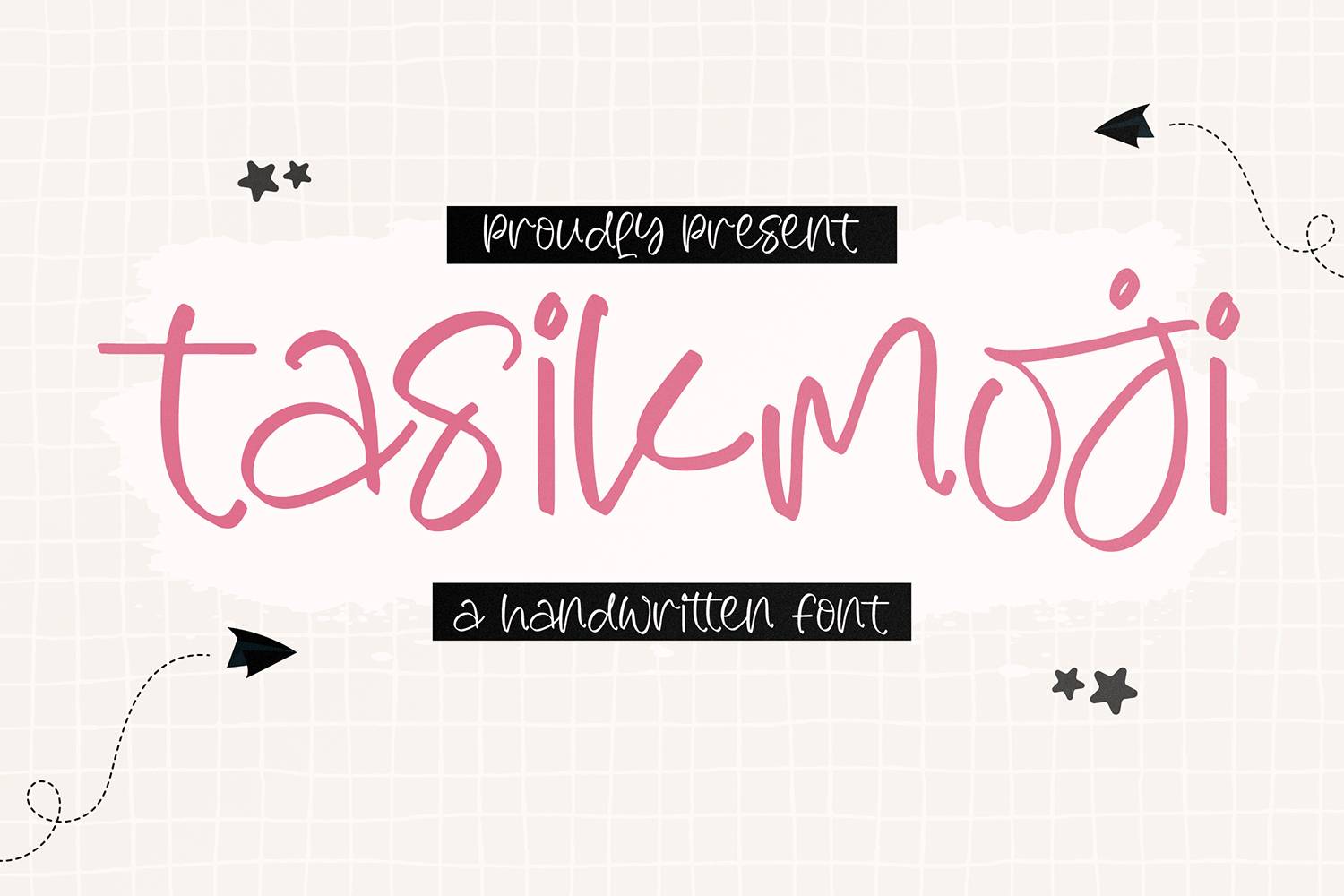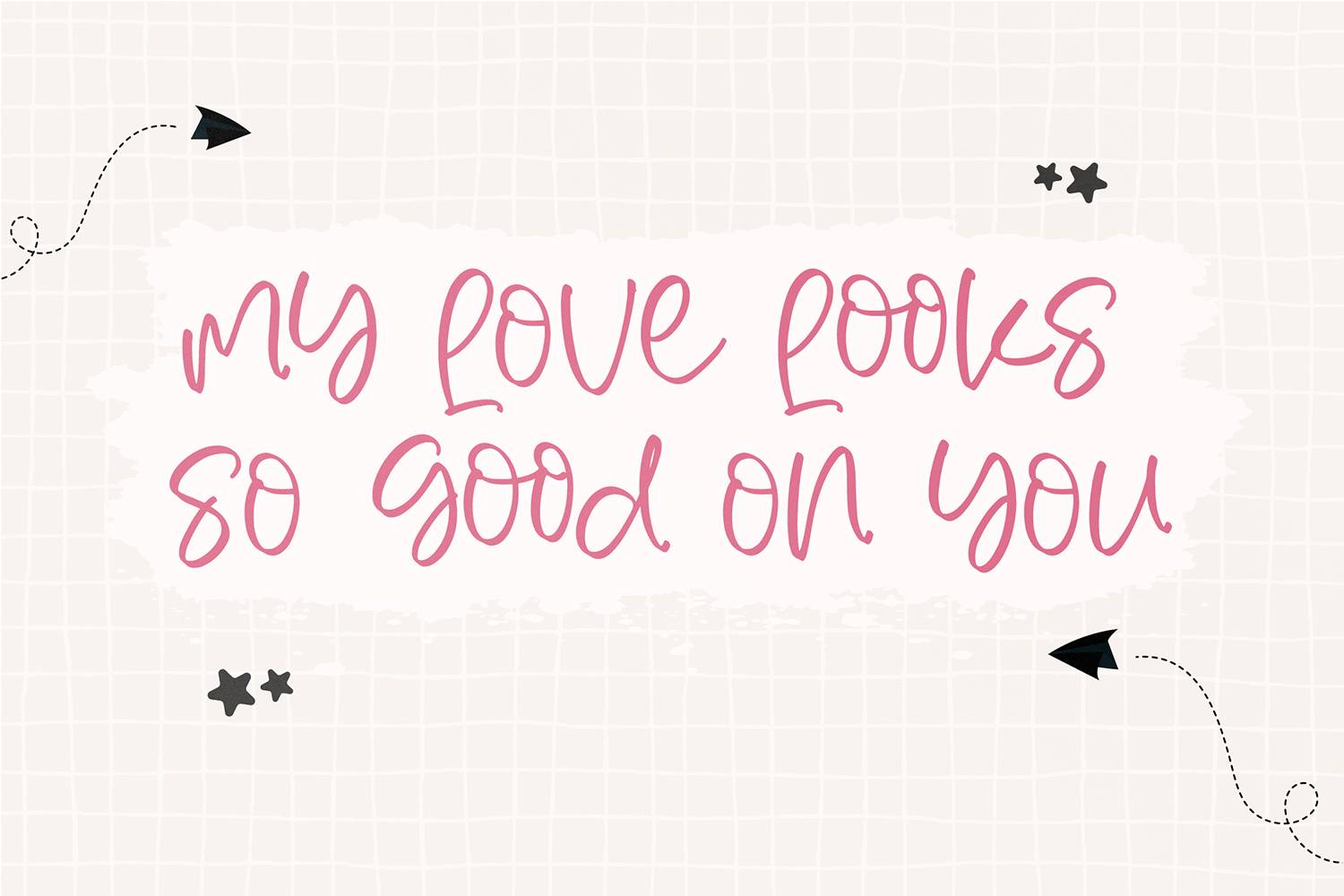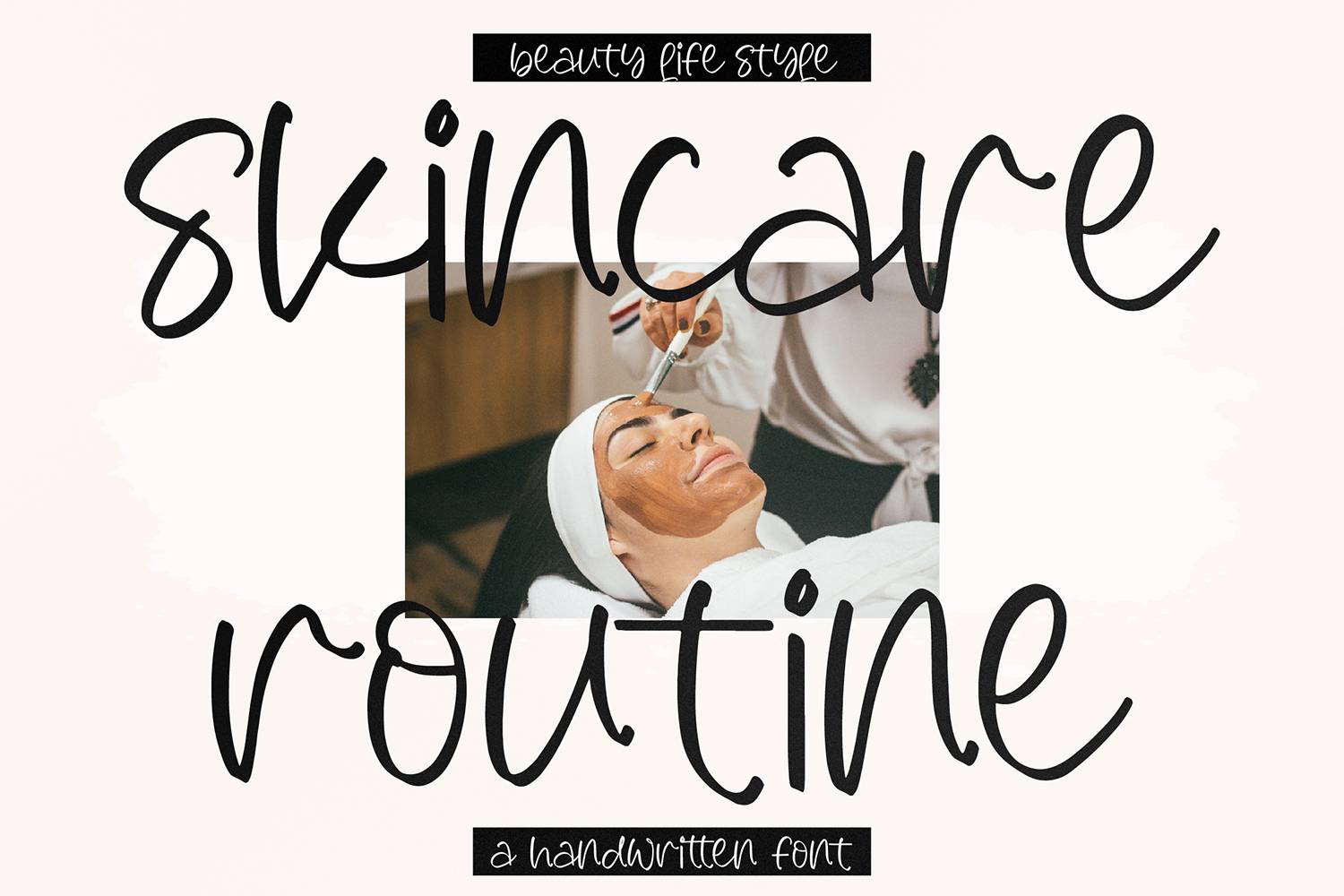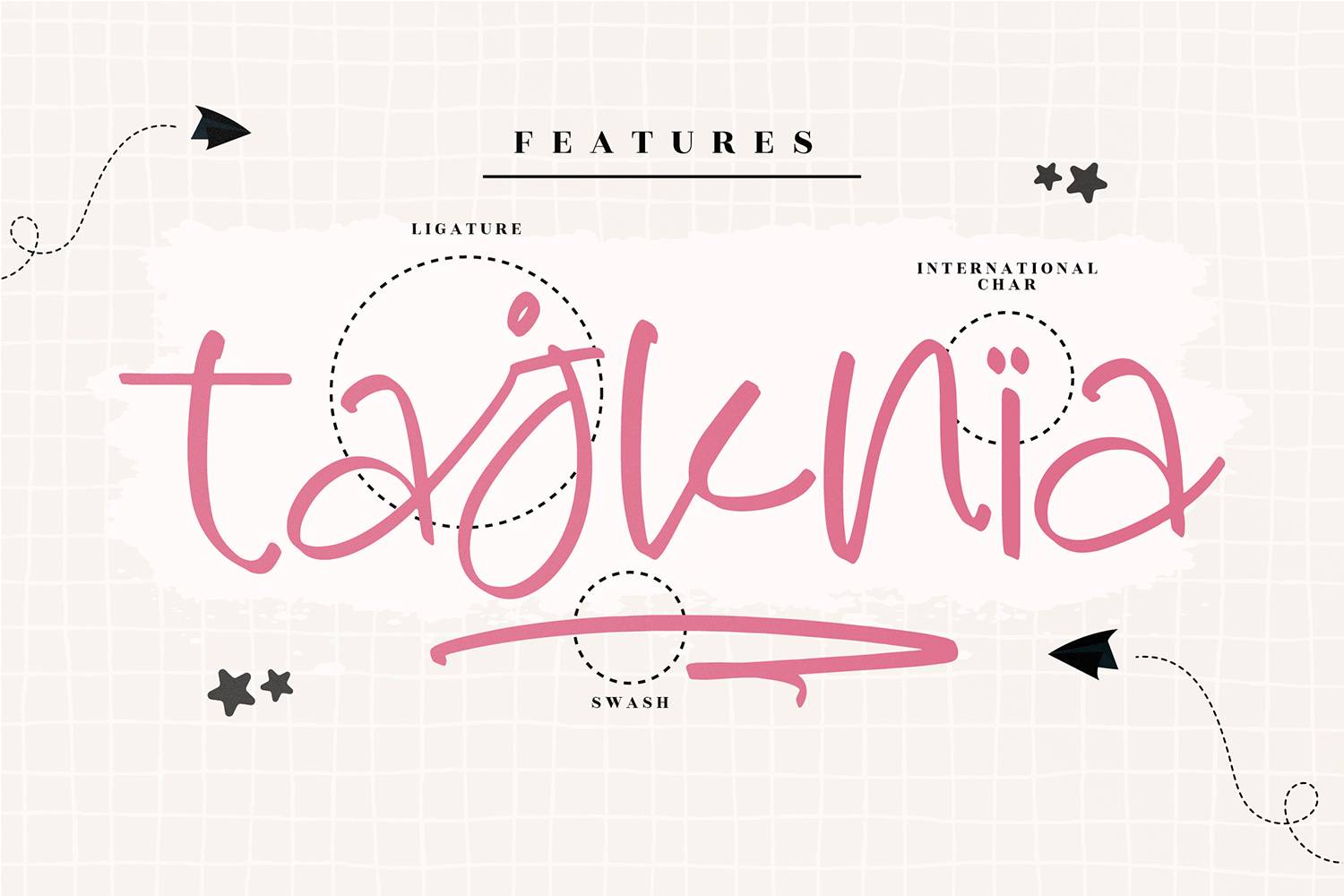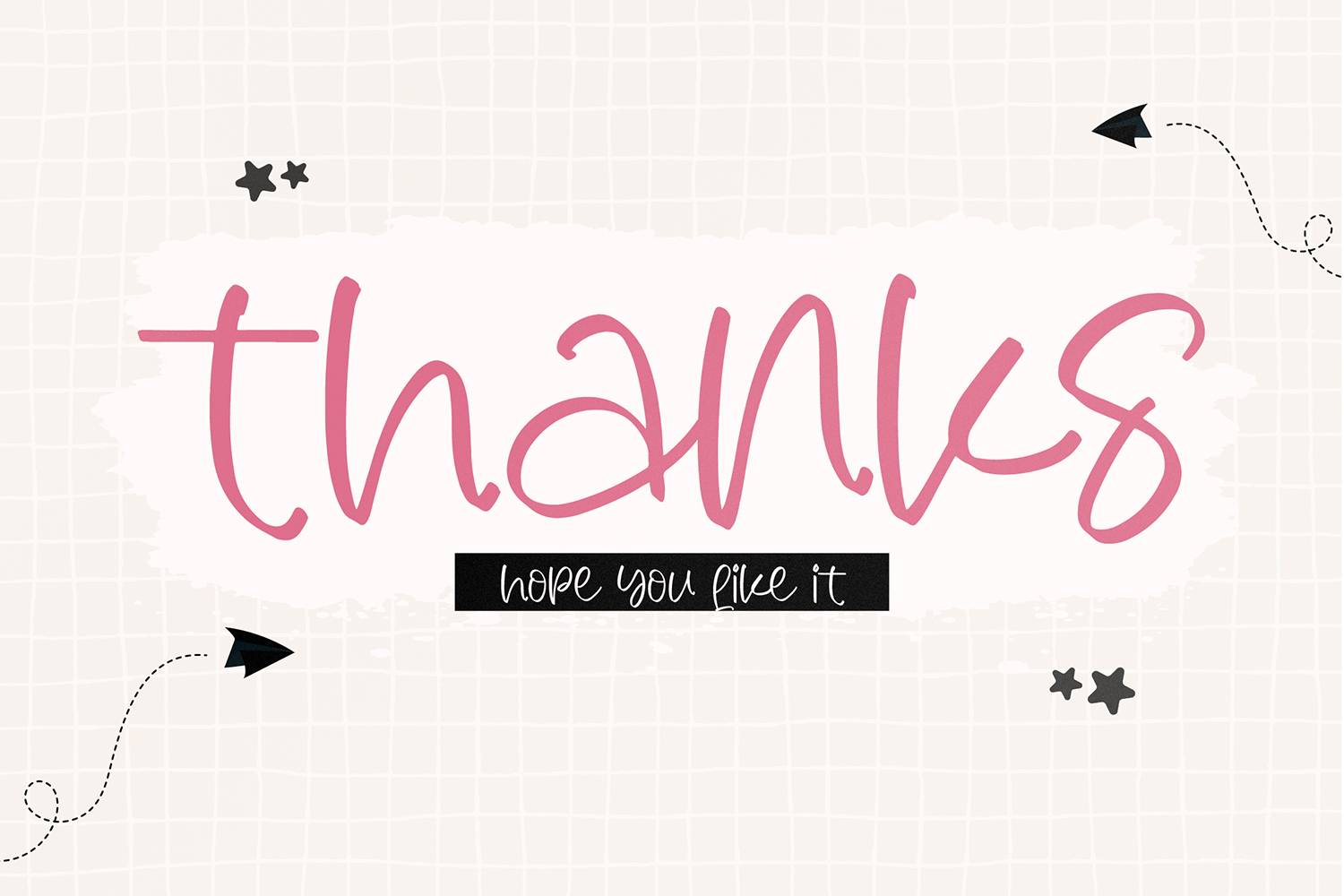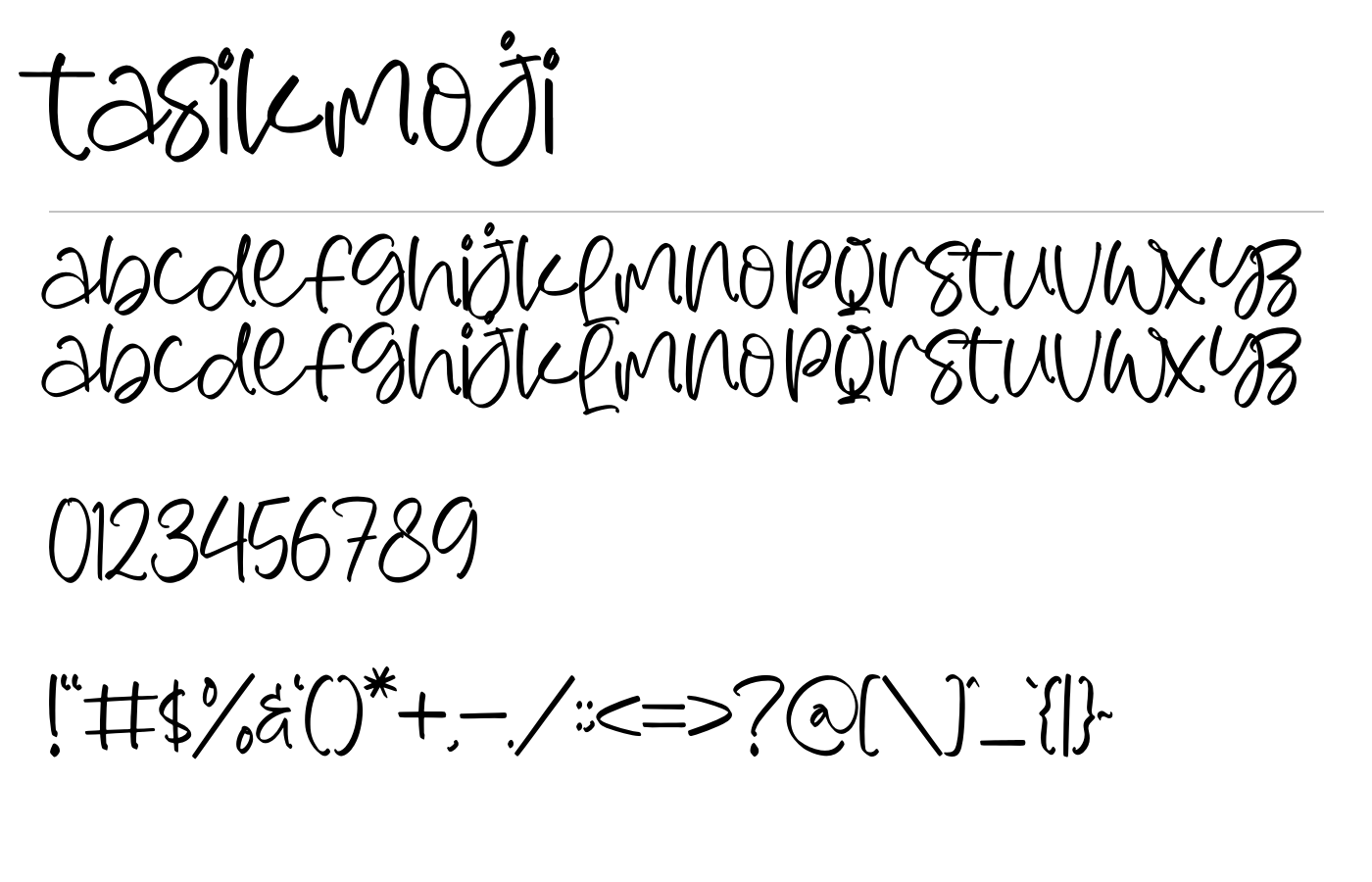
Tasikmoji is a playful and casual handwritten font featuring thin, uneven strokes that give it a friendly and approachable personality. Its tall x-height and irregular letterforms with quirky loops make it perfect for creative projects that seek a personal, informal touch. Ideal for greeting cards, invitations, and branding that wants to convey warmth and individuality, Tasikmoji adds a fun, lively vibe without compromising readability.
Tasikmoji Font
About Tasikmoji Font